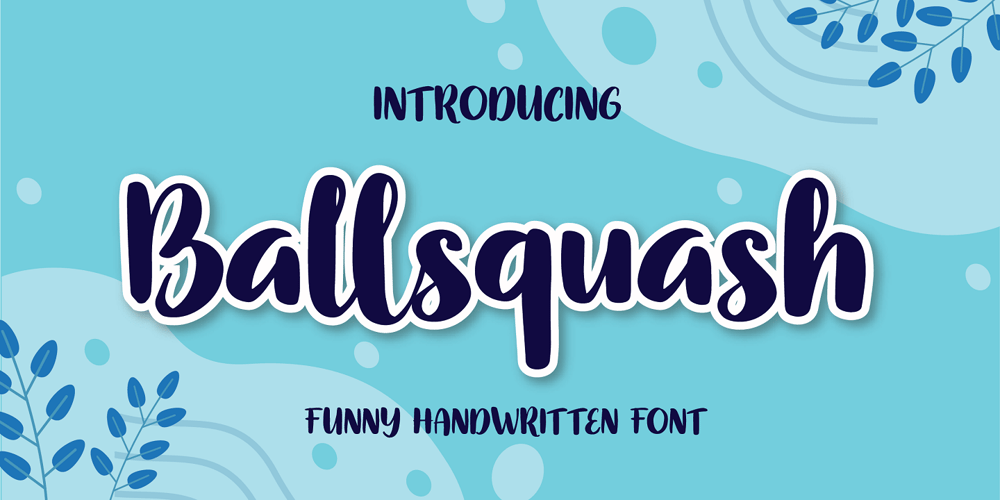
Ballsquash Font Family was designed by Patria Ari Wijonarko and published by Patria Ari. Ballsquash contains 1 styles and family package options. Introducing of our new product, Ballsquash – a Funny Handwritten Font. Inspired by bouncy shapes, this font is suitable for craft, quote, book cover, poster, t-shirt, logotype, and many more.This font available in Uppercase, Lowercase, Number, Symbol and also multilingual accent.Thank You!